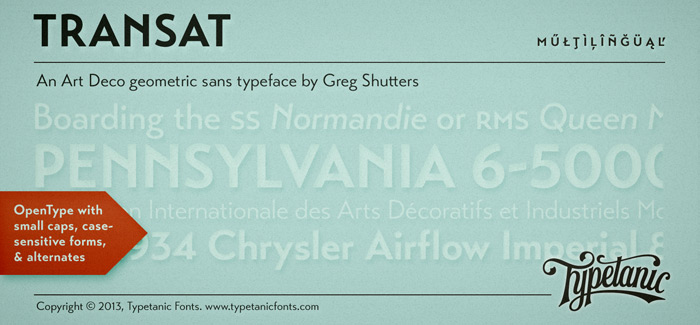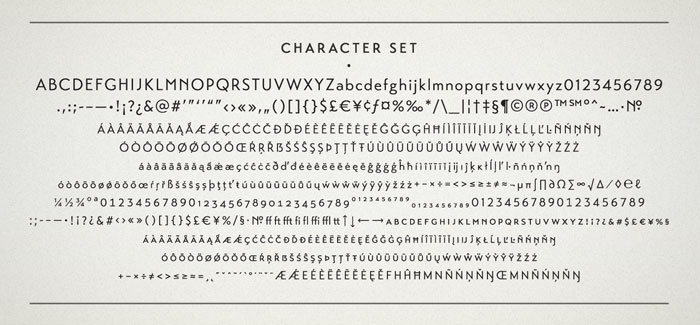
Transat font
Transat font is a geometric sans serif typeface.
Caps inspired by Art Deco signage — found inside the “Gare Maritime” (literally “sea station”) ocean liner terminals in both Le Havre and Cherbourg, France, in the early 1930s. The font name “Transat” is the common shortening of “Compagnie Générale Transatlantique,” the company that operated majestic ocean liners like the SS Normandie out of Le Havre from 1862–1974. Transat font includes many OpenType features, such as ligatures (ff/ft/fft), small capitals, case sensitive forms, stylistic alternates, arbitrary fractions, and a full complement of proportional, tabular, and oldstyle figures.
The typeface, released in 5 weights (including optically-corrected obliques) is perfect for display usage, and the standard and medium weights are also well-suited for short-to-medium length text settings.